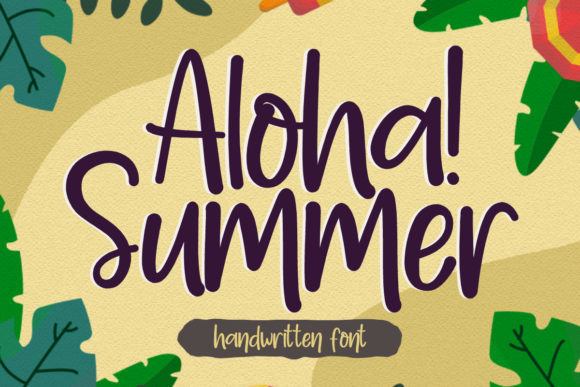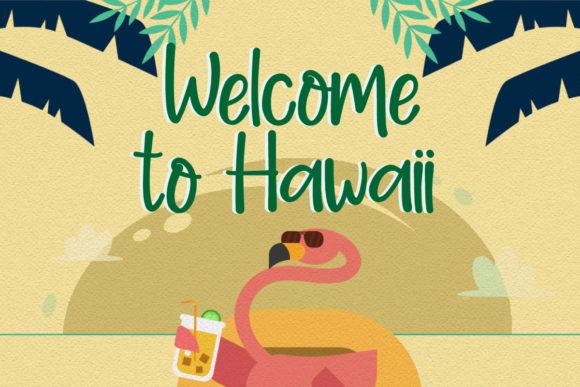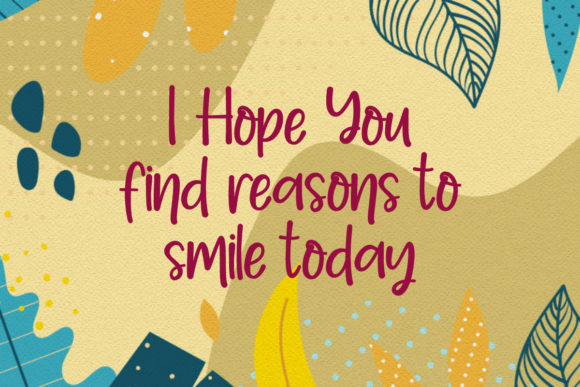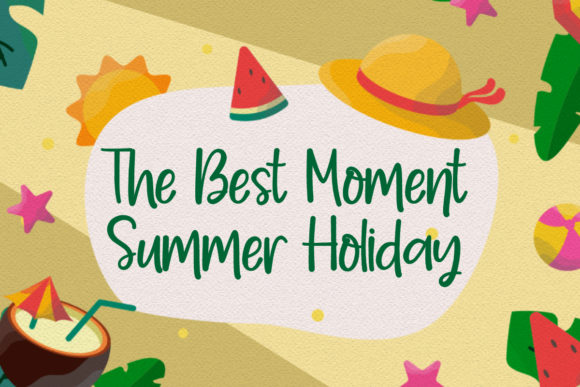
Aloha Summer Font: A Cute Handwritten Script for Cricut & DIY Projects
About the Aloha Summer Font
Explore the possibilities with Aloha Summer Font, a font that offers both beauty and functionality. Aloha Summer is a sweet and relaxed handwritten font, carefully designed to become a true favorite! With its neat and beautiful arrangement of letters, this typeface will look outstanding in both formal and non-formal designs.
Aloha Summer’s casual, handwritten style is ideal for projects needing a friendly, approachable feel. It excels in headlines, short text blocks on packaging, and social media graphics. Use it sparingly in branding elements, such as logos or short taglines, where legibility is paramount. Avoid using it for body text or long paragraphs; its informal nature makes extended reading difficult.
This font pairs well with clean sans-serif fonts like Open Sans or Lato for a balanced contrast, or with a playful script font like Pacifico for a cohesive, hand-drawn aesthetic. For a more sophisticated feel, consider pairing it with a delicate serif font such as Playfair Display.
Aloha Summer projects a relaxed, optimistic personality, perfect for brands in the tourism, food, or lifestyle sectors. Its charm lies in its informality, making it unsuitable for serious or corporate applications.
Aloha Summer Font Usage Examples
Aloha Summer Font Example